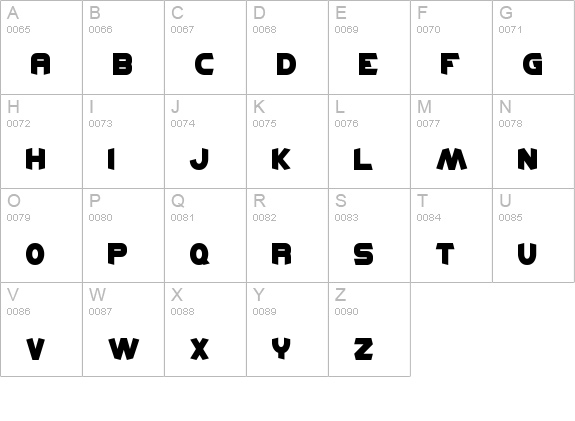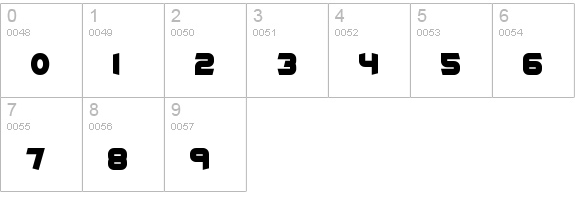
Kickflip BRK Font Details
Kickflip BRK is a dynamic and energetic display font that exudes a sense of urban coolness and street style. With its bold and edgy letterforms, this font is perfect for creating attention-grabbing headlines, logos, and branding materials. The sharp angles and modern aesthetic of Kickflip BRK make it a versatile choice for projects that require a touch of attitude and flair. Best of all, Kickflip BRK is available for free download at FontsMarket.com. Whether you're a designer looking to add some urban edge to your projects or just someone who appreciates a font with personality, Kickflip BRK is sure to make a statement. Download it today and start unleashing your creativity with this striking typeface.